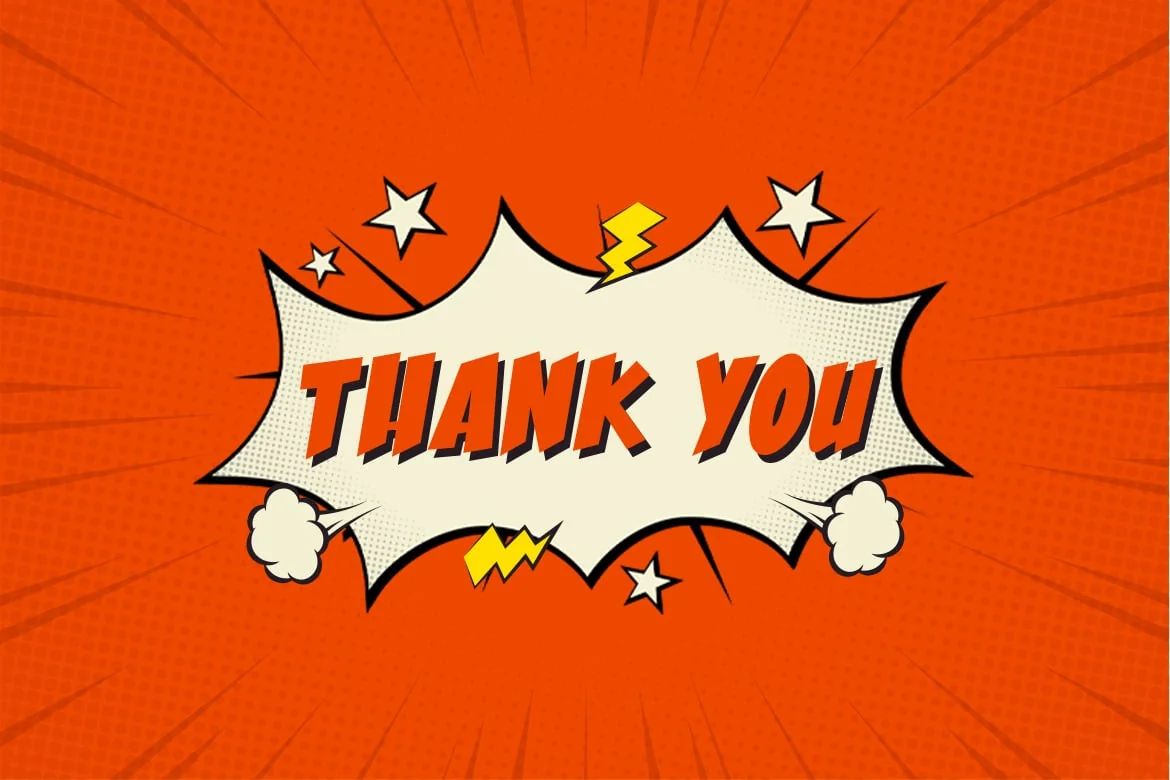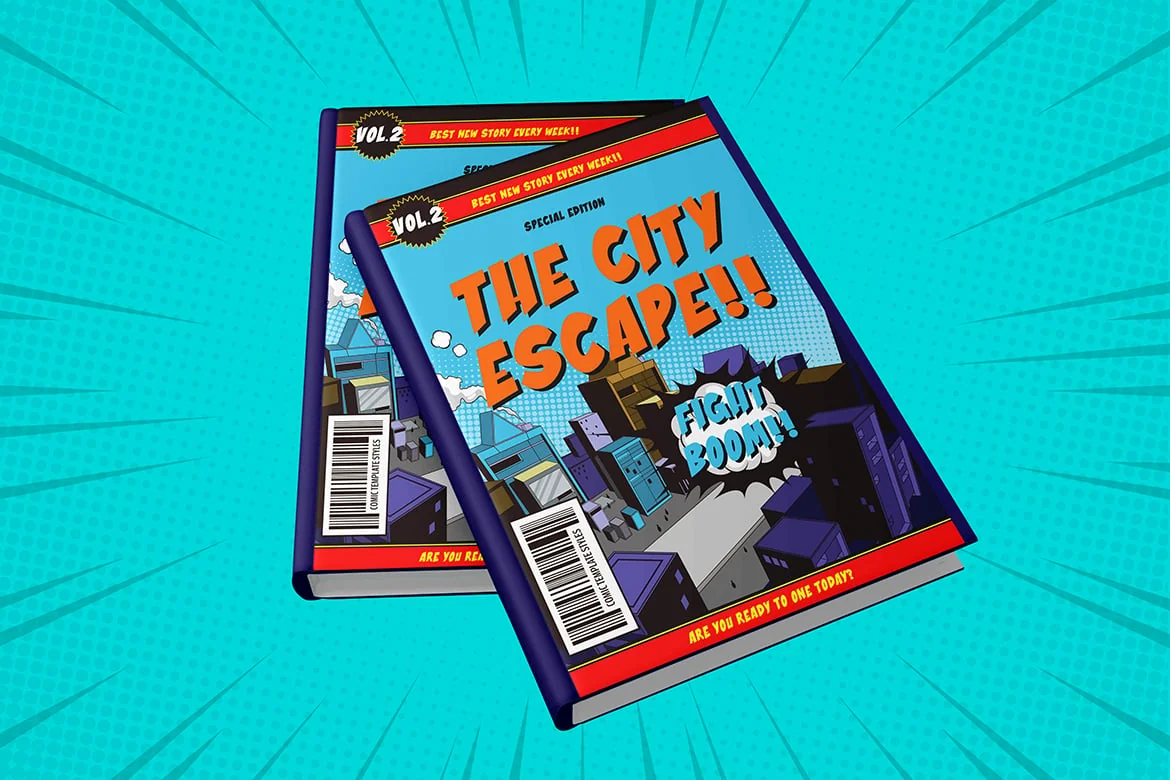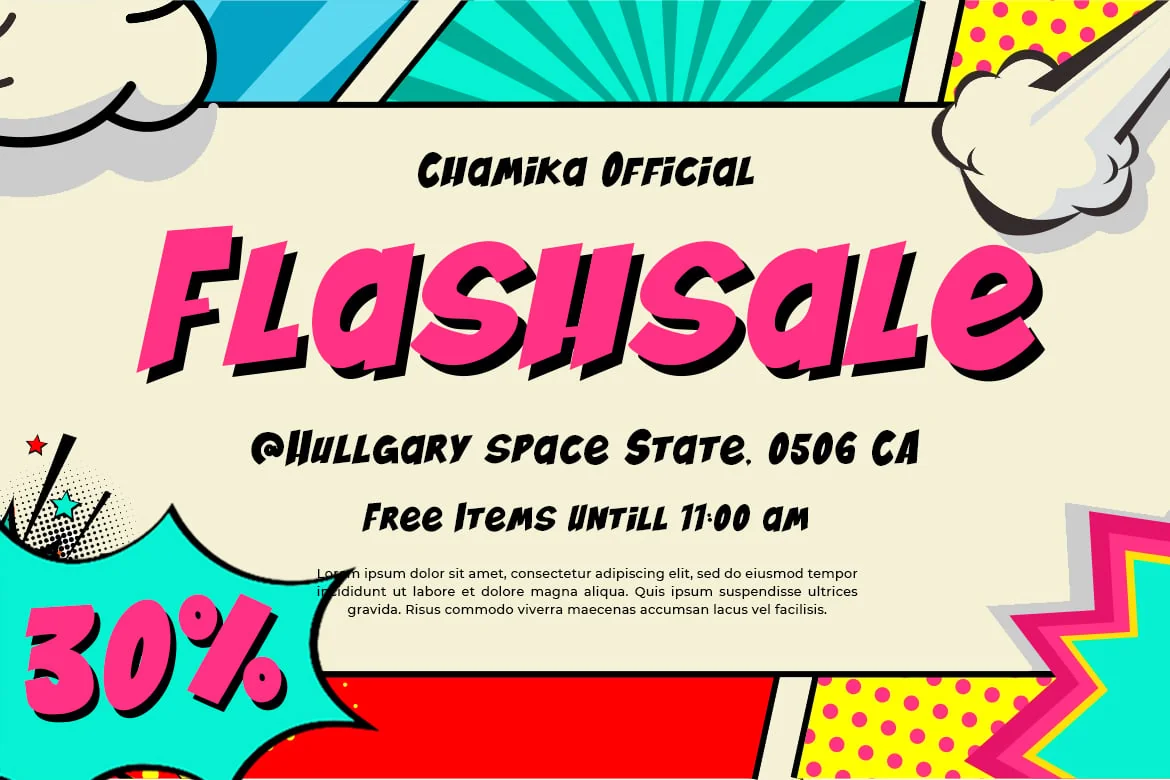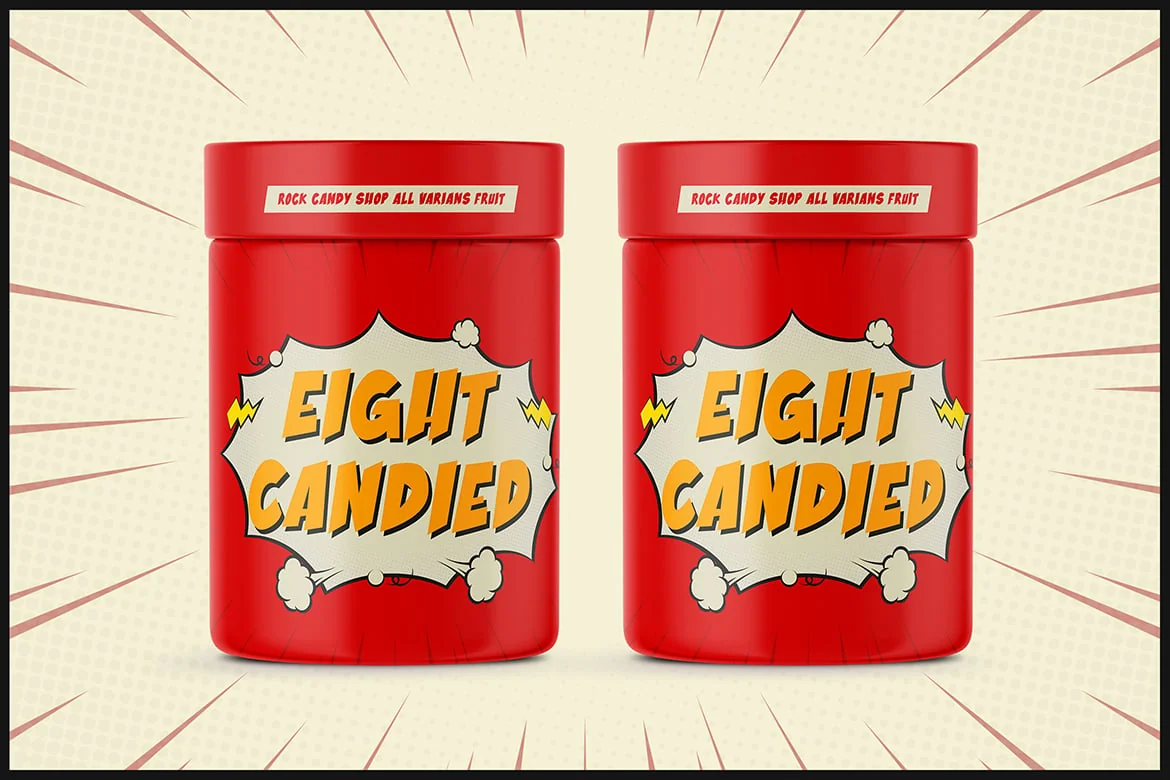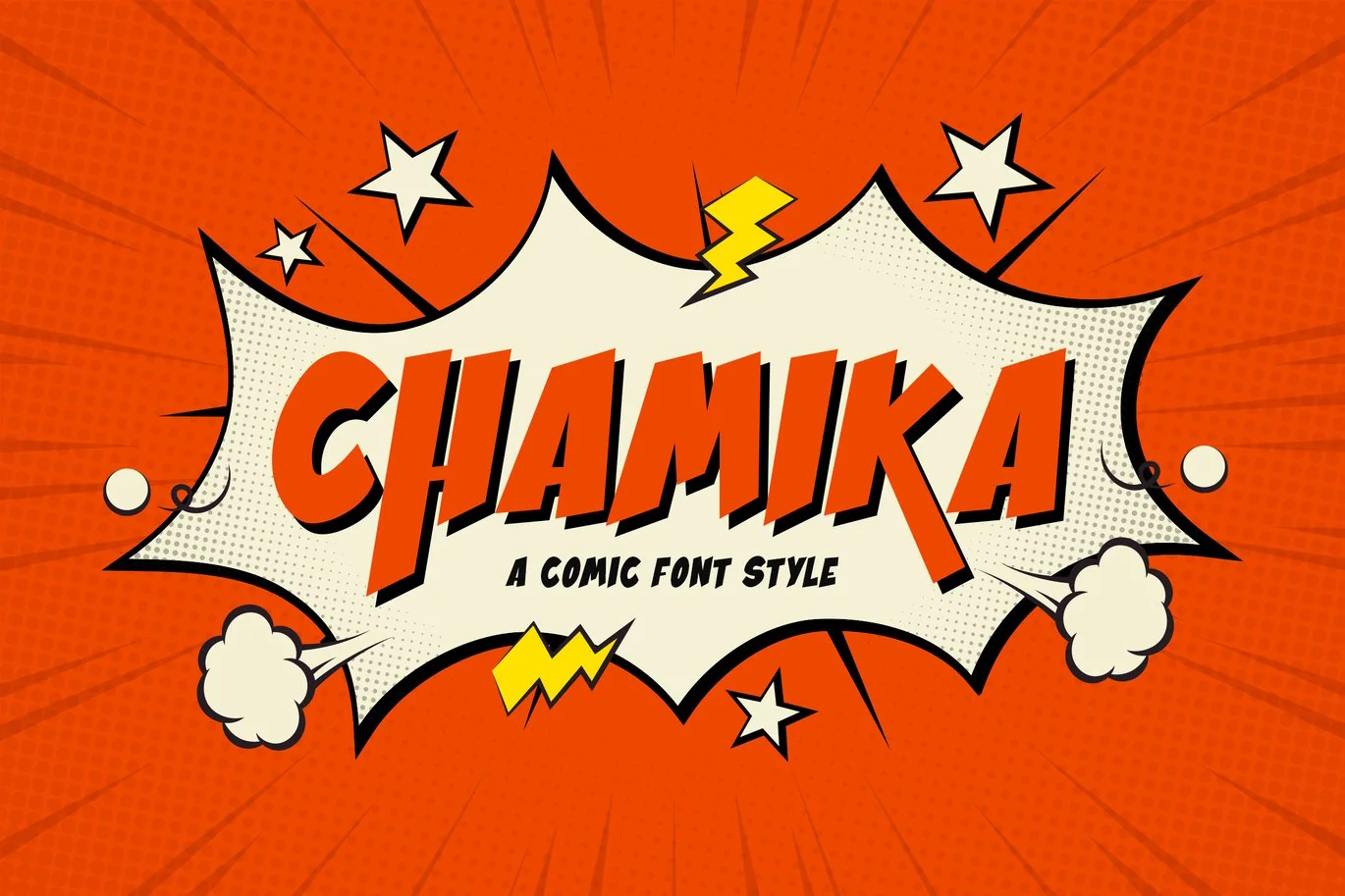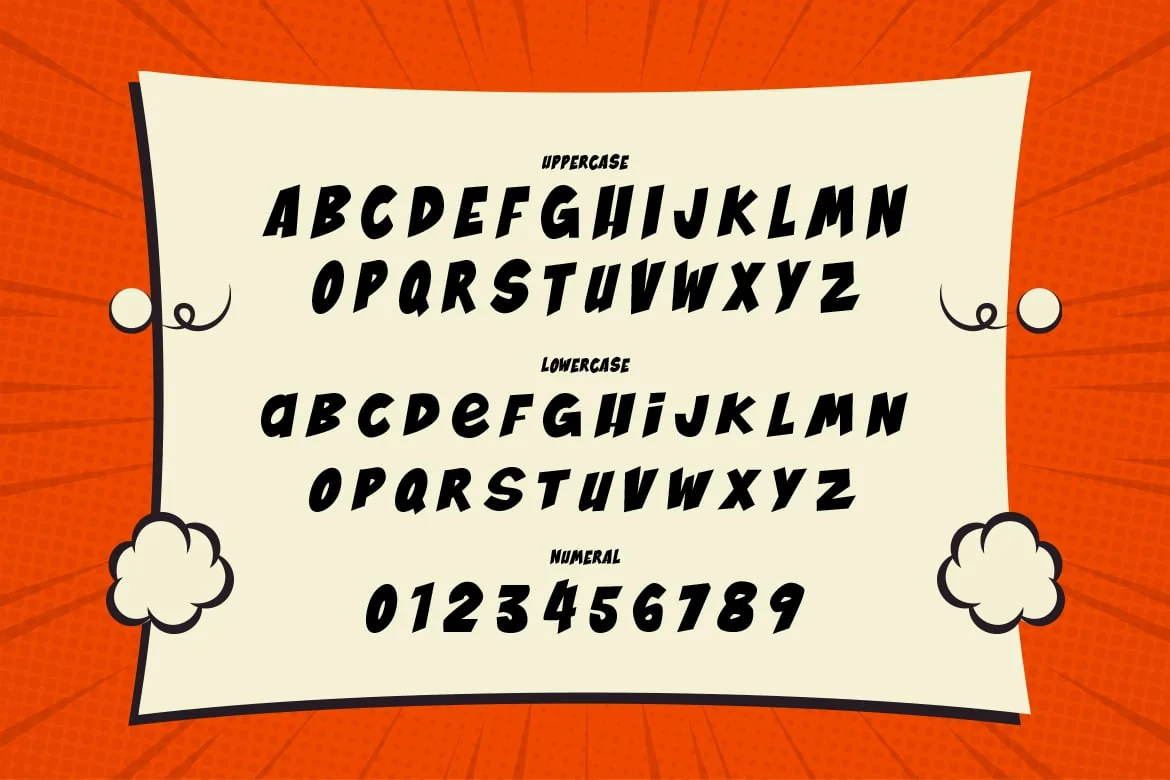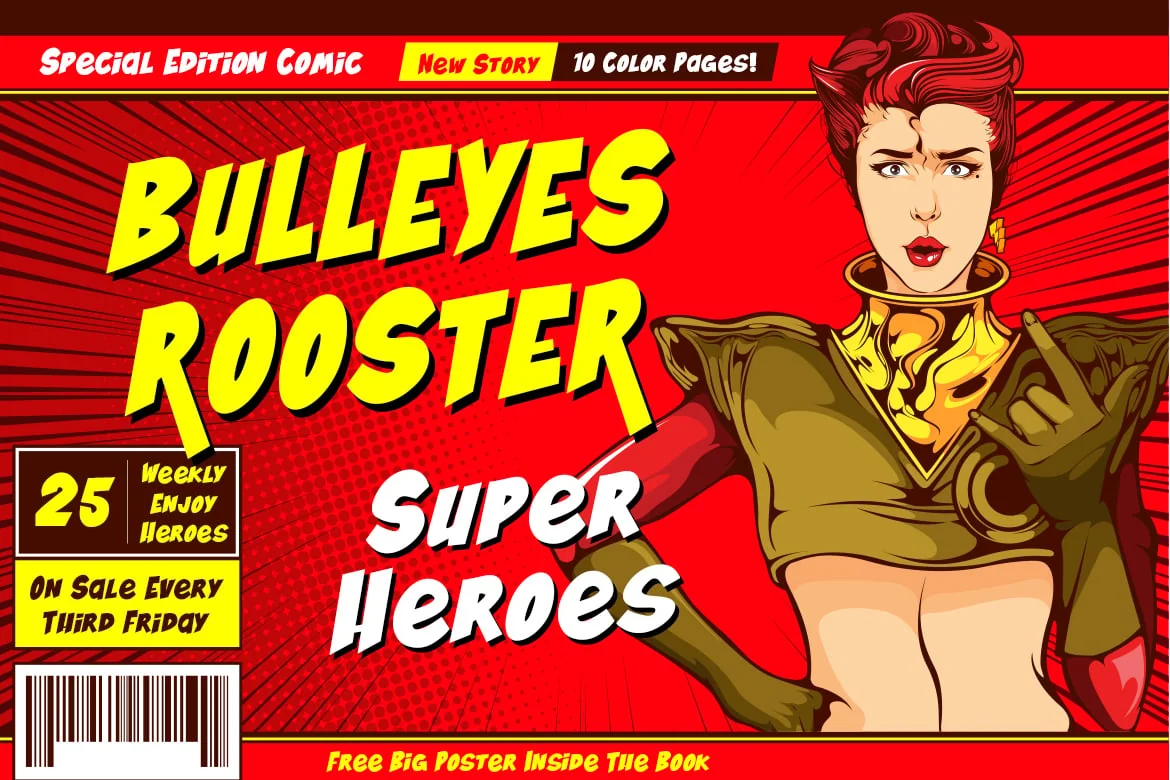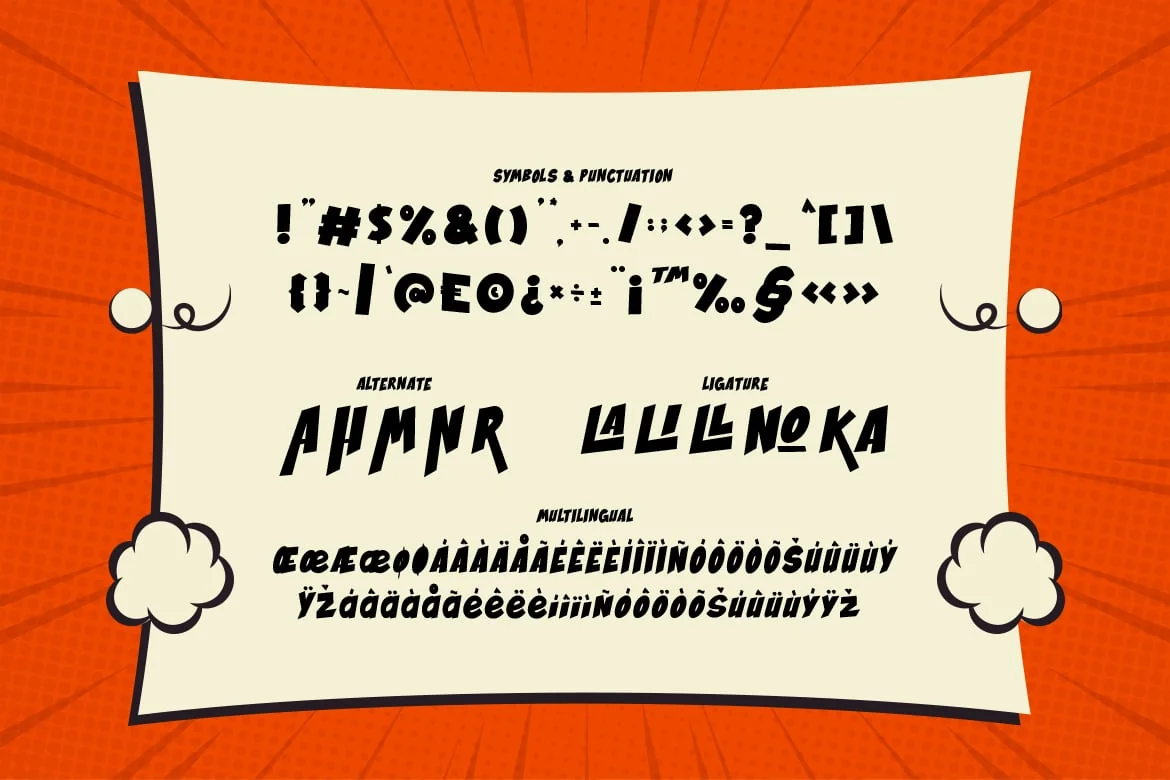
Chamika – A Comic Font Style
Chamika is a sweet and simple comic font with unique style.
Get inspired by its unique charm, and turn any design project into a true standout!